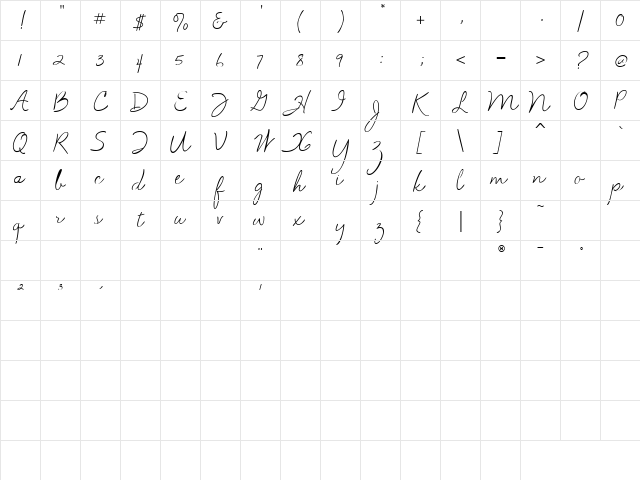
AL Script Hand Regular
Design Context for AL Script Hand Typeface
AL Script Hand brings a calligraphic fluidity to the page — its connecting strokes and expressive curves give it an unmistakably human quality.
Font Pairing: Combine AL Script Hand with a simple geometric sans for maximum contrast — the tension between flowing curves and clean structure is a classic typographic pairing.
Pro Tip: Pair AL Script Hand with a clean sans-serif for supporting text. The contrast between fluid script and geometric structure creates an elegant typographic hierarchy.